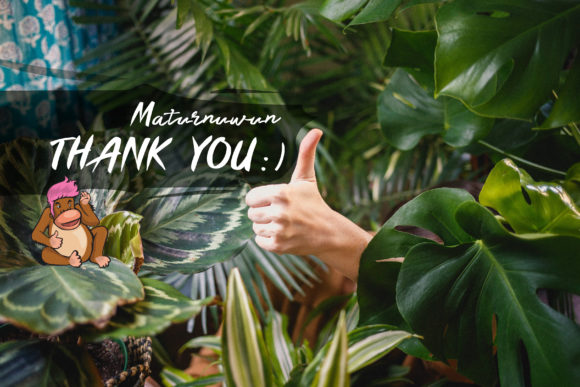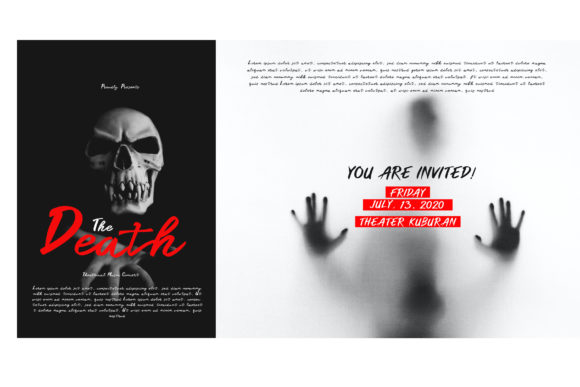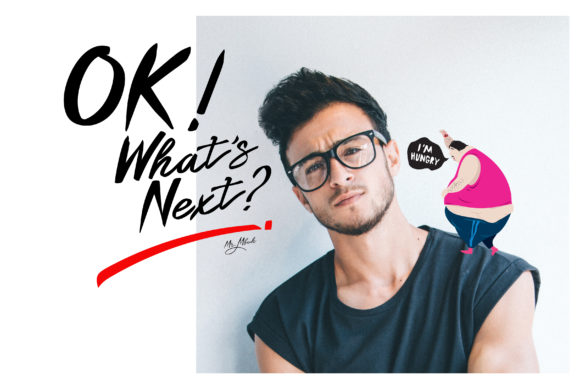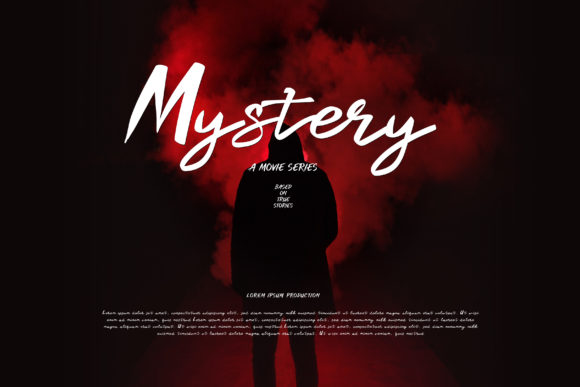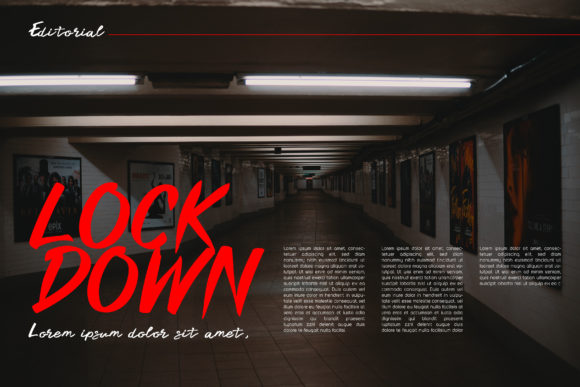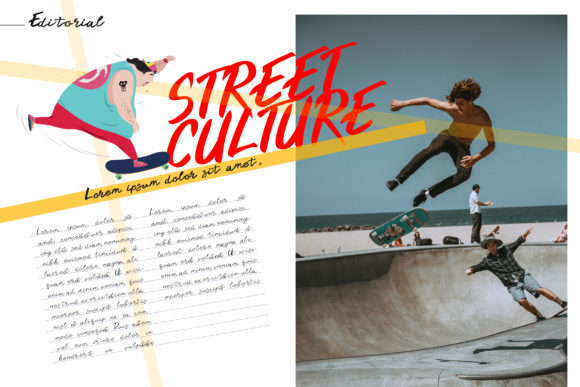
The Perfect Blend of Casual Charm and Timeless Elegance
You know that moment when you’re brainstorming ideas for a new project, and suddenly, a spark of inspiration hits you? The words flow, and the concept starts to take shape. For designers, this moment is often accompanied by the search for the perfect font to bring their vision to life. That’s where the Gemagus Font comes in – a strong, handwritten font that’s as versatile as it is charming.
With its casual, down-to-earth feel, the Gemagus Font is the perfect choice for designers looking to add a touch of personality to their work. Whether you’re working on a busy background or need a standalone headline, this font is sure to impress. Its readability and timeless elegance make it a valuable asset for any designer’s toolkit, allowing you to create visually stunning pieces that stand out from the crowd.
Gemagus Font Key Features
- Font Family: Gemagus, a unique and elegant script font designed to evoke a sense of luxury and sophistication.
- Font Size: Gemagus is available in a range of font sizes, from 12 to 72 points, making it suitable for a variety of design applications, including signage, invitations, and editorial content.
- Resolution: Designed to be highly legible at high resolutions, Gemagus is ideal for use in digital applications, such as websites, social media, and mobile devices, with resolutions up to 300 DPI.
- Unique Characteristics: Gemagus features a distinctive, flowing script style with intricate details and flourishes, making it perfect for adding a touch of elegance and sophistication to designs.
- Language Support: Gemagus includes comprehensive language support, with over 200 languages and 1000 glyphs, making it an excellent choice for designers working on global projects.
Gemagus Font Review
I recently had the chance to work with Gemagus Font, and I must say it’s an interesting addition to the world of typography. ✨ One thing that stands out is its unique, mystical vibe that adds a touch of magic to any design project. The font’s intricate details and bold lines make it perfect for titles, headings, and any other element where you want to make a statement.
- ✨ Highly customizable: Gemagus Font comes with a range of styles and weights, allowing you to fine-tune it to fit your design needs.
- ✨ Perfect for fantasy and adventure themes: The font’s mystical and adventurous feel makes it an ideal choice for projects related to these genres.
However, I did encounter some limitations that might be a concern for some designers. ⚠️ The font’s complexity can sometimes make it difficult to read, especially in smaller sizes or when used extensively throughout a design. Additionally, the font’s bold lines can sometimes clash with other design elements, requiring some careful balancing.
- ⚠️ Limited legibility in small sizes: As mentioned earlier, the font’s intricate details can make it difficult to read when scaled down.
- ⚠️ May require adjustments for certain design styles: The font’s bold lines and mystical vibe might not be the best fit for more minimalist or modern designs.
Overall, I’d say Gemagus Font is a great choice for designers looking to add a touch of magic to their projects. While it has some limitations, its unique style and high customizability make it a valuable addition to any design toolkit.
Tips for Getting the Most Out of Gemagus Font
Use Gemagus Font for titles, headings, and body text to add a touch of elegance to your designs. Experiment with different font sizes, colors, and styles to create a unique look.
Gemagus Font is perfect for:
– Luxury brand logos and packaging
– High-end marketing materials and advertisements
What is the recommended font size and line height for the Gemagus Font?
For optimal readability, we recommend using a font size between 12pt and 18pt, with a line height of 1.2 to 1.5 times the font size. This will ensure that the text is clear and easy to read, while also maintaining a visually appealing layout.